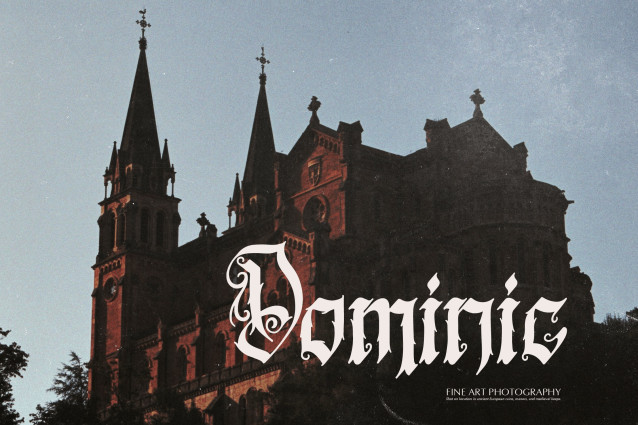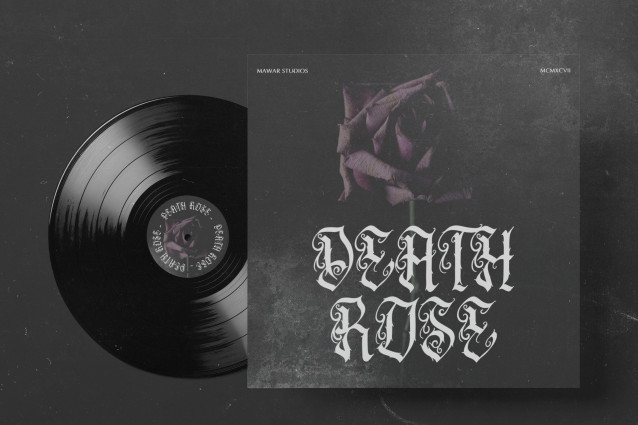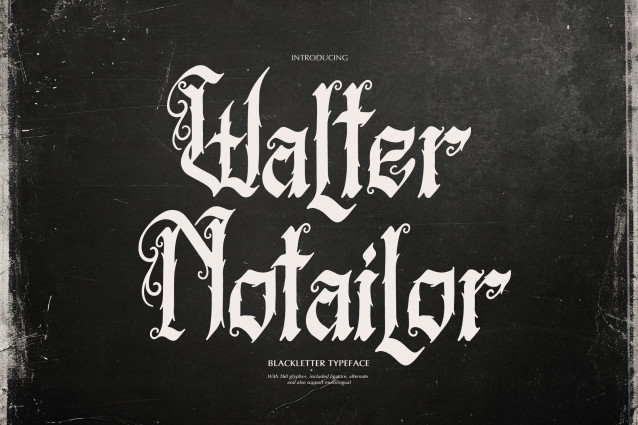
Walter Notailor Font
Walter Notailor | Blackletter Typeface, from Gracetypestudio, suitable for any projects such as: logos, branding projects, homeware designs, product packaging, mugs, quotes, posters, shopping bags, t-shirts, book covers, name card, invitation cards, greeting cards, label, photography, watermark, special events, and all your other lovely projects that need a Blackletter Typeface taste.